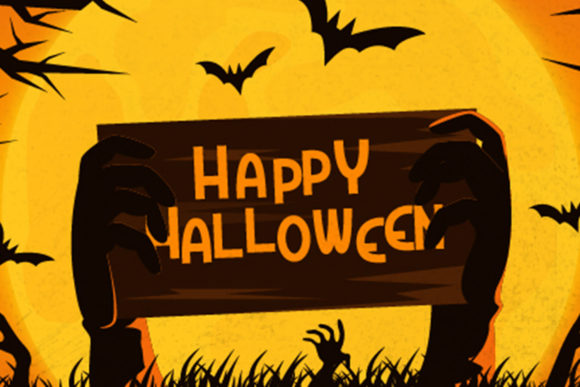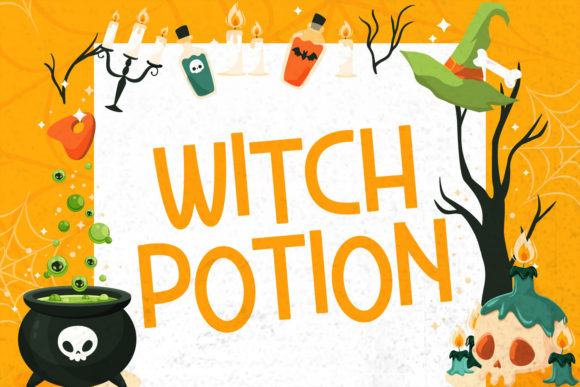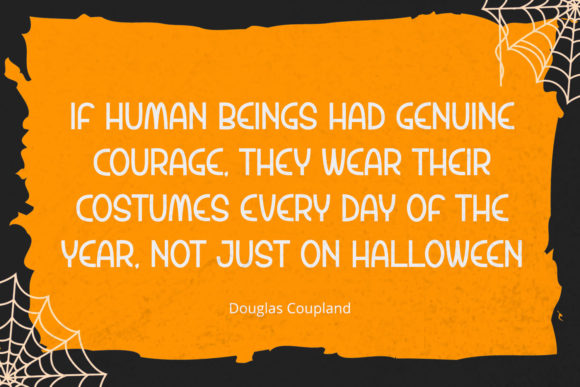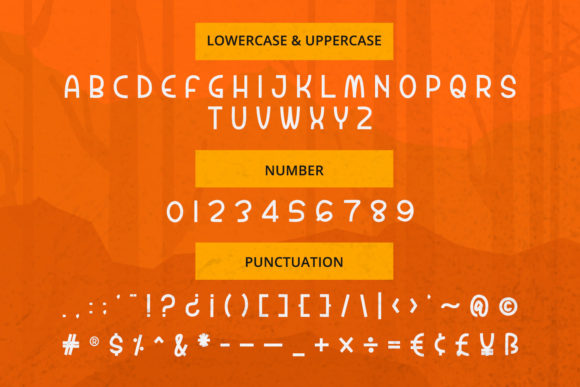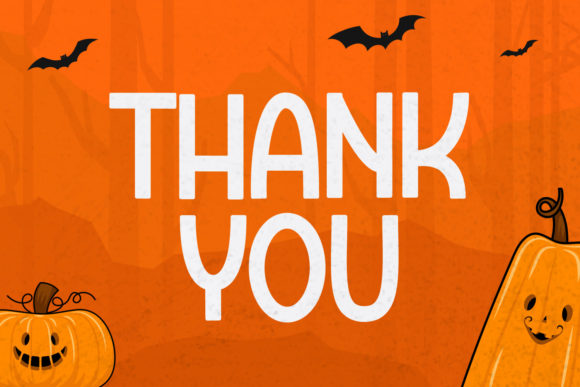
Introduction to Pumpkin Party Font
As a designer, have you ever found yourself rummaging through your favorite design resources, searching for that perfect font to match the eerie atmosphere of Halloween? I’m sure many of us can relate to this moment of creative frustration. But, what if I told you that I’ve stumbled upon a game-changing font that’s sure to elevate your spooky designs?
Meet the Pumpkin Party Font, a cool-lettered and spooky display font that’s perfect for any Halloween-related project or crafty idea. This free download is a design resource that’s hard to resist, with its high-quality design and transparent background making it a versatile addition to any creative project.
As designers, we’re always on the lookout for unique and creative resources to help us stand out in our work. The Pumpkin Party Font is a valuable addition to any design arsenal, offering endless possibilities for creative expression and experimentation.
Key Features of Pumpkin Party Font
- High-quality design resource ideal for creative projects, including invitations, greeting cards, and party decorations.
- Features a transparent background, allowing for easy layering and customization in design software.
- Includes a range of unique, hand-drawn characters and symbols perfect for adding a personal touch to any project.
Honest Review: Pumpkin Party Font
I recently stumbled upon the Pumpkin Party Font, and I must say it’s a delightful addition to my design resources. ✨ This free download has quickly become a go-to for any project that needs a playful, whimsical touch.
Here are some aspects that make it shine:
- Transparent background, making it easy to work with
- Unique and playful lettering that adds character to any design
While it’s not a bad font by any means, I do have a few minor issues with it:
- ⚠️ Limited character set, which may be a concern for more extensive projects
- ⚠️ Not ideal for serious or formal designs, as it’s quite playful and may not fit the tone
Overall, I’m quite impressed with the Pumpkin Party Font. It’s a fantastic resource for designers looking to add some personality to their projects. While it may not be perfect, its strengths far outweigh its limitations, making it a valuable addition to my design library.
Pumpkin Party Font
The Pumpkin Party Font is ideal for fall-themed designs, invitations, and marketing materials. Its playful and festive feel makes it perfect for creative projects, from party decorations to social media graphics.